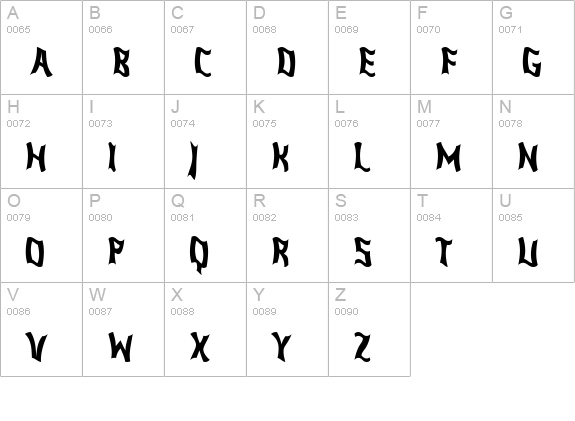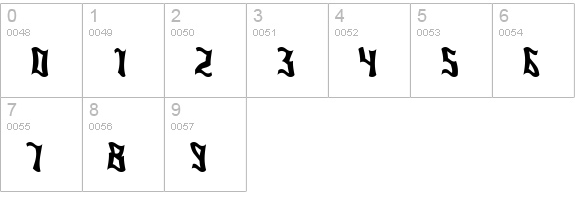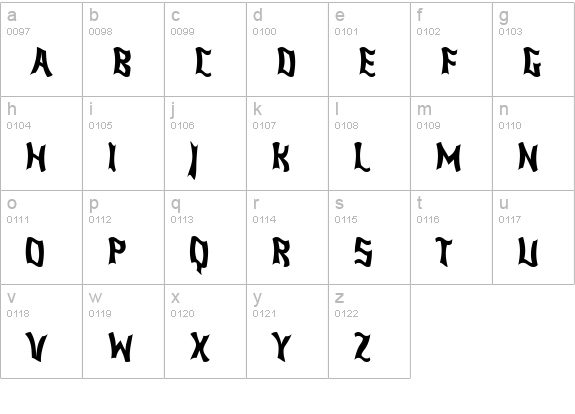
ConcavexStepper Font Details
ConcavexStepper font is a modern and sleek typeface that exudes elegance and sophistication. Its unique design features intricate details and sharp edges, making it perfect for a wide range of design projects. The font's distinctive concave elements give it a sense of depth and movement, adding a dynamic touch to any text. Whether you're creating a logo, poster, or website, ConcavexStepper font will make your designs stand out from the crowd. The versatility of this font allows it to be used in both bold headlines and elegant body text, making it a versatile addition to any designer's toolkit. Best of all, ConcavexStepper font is available for free download exclusively at FontsMarket.com. So why wait? Elevate your designs with this stunning and contemporary typeface today!